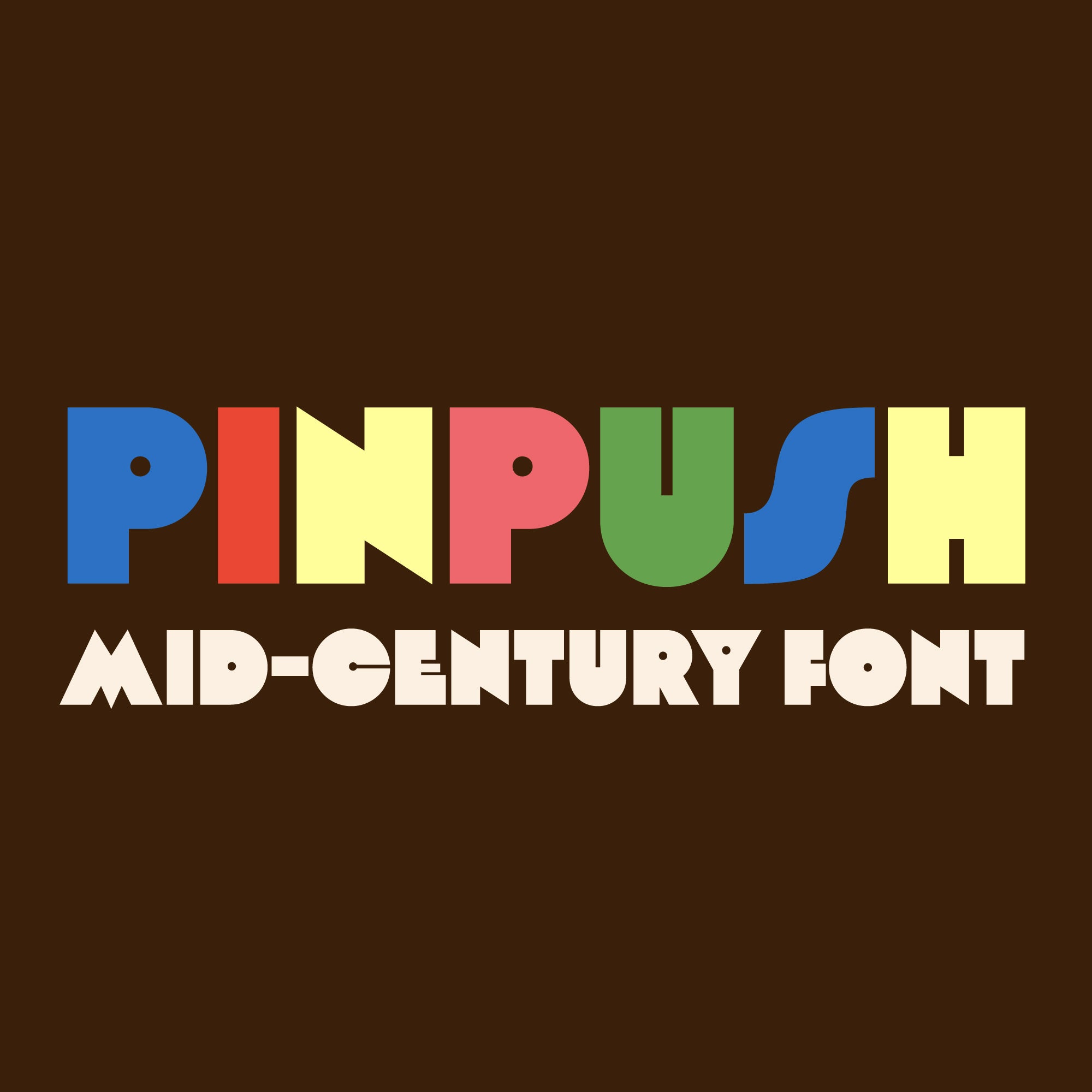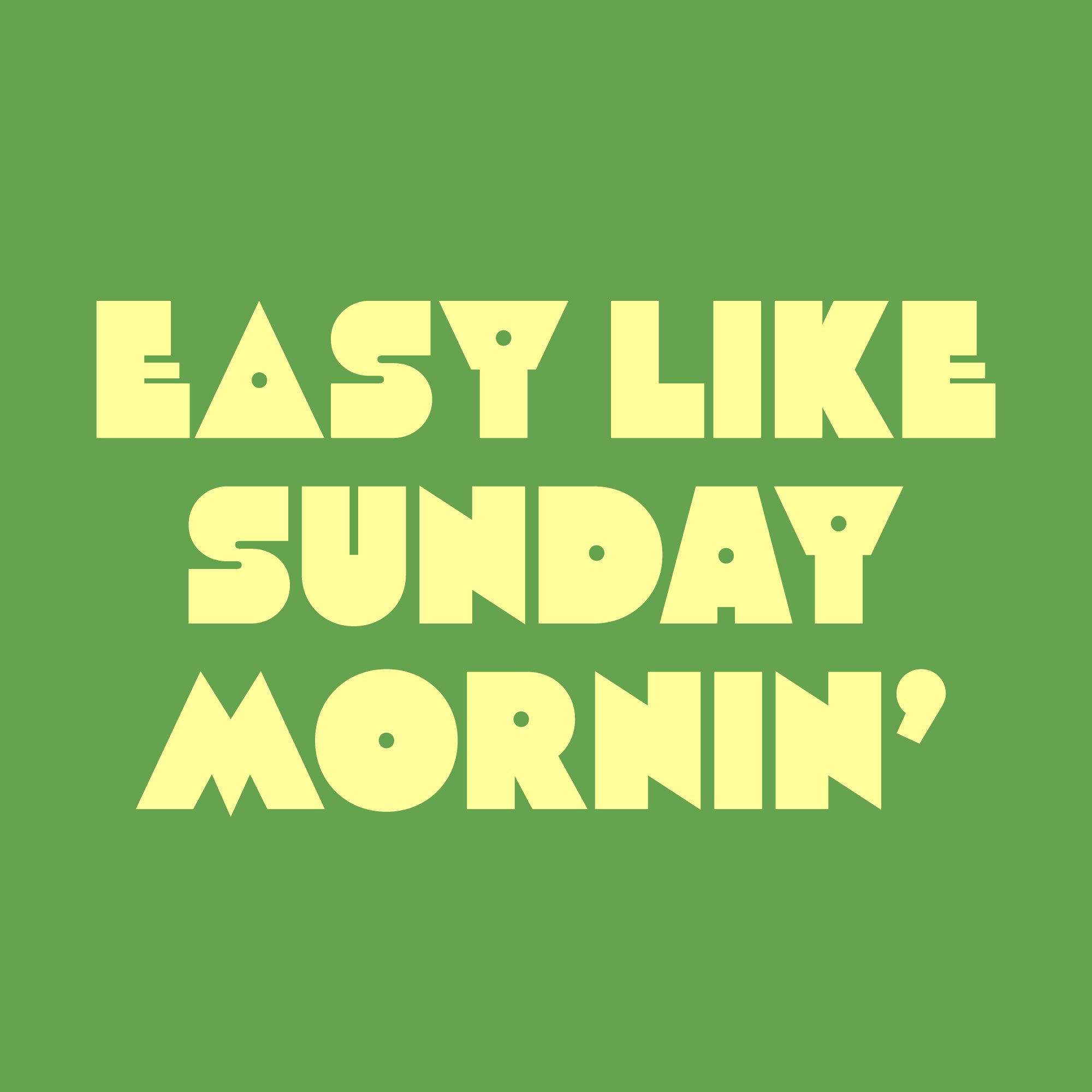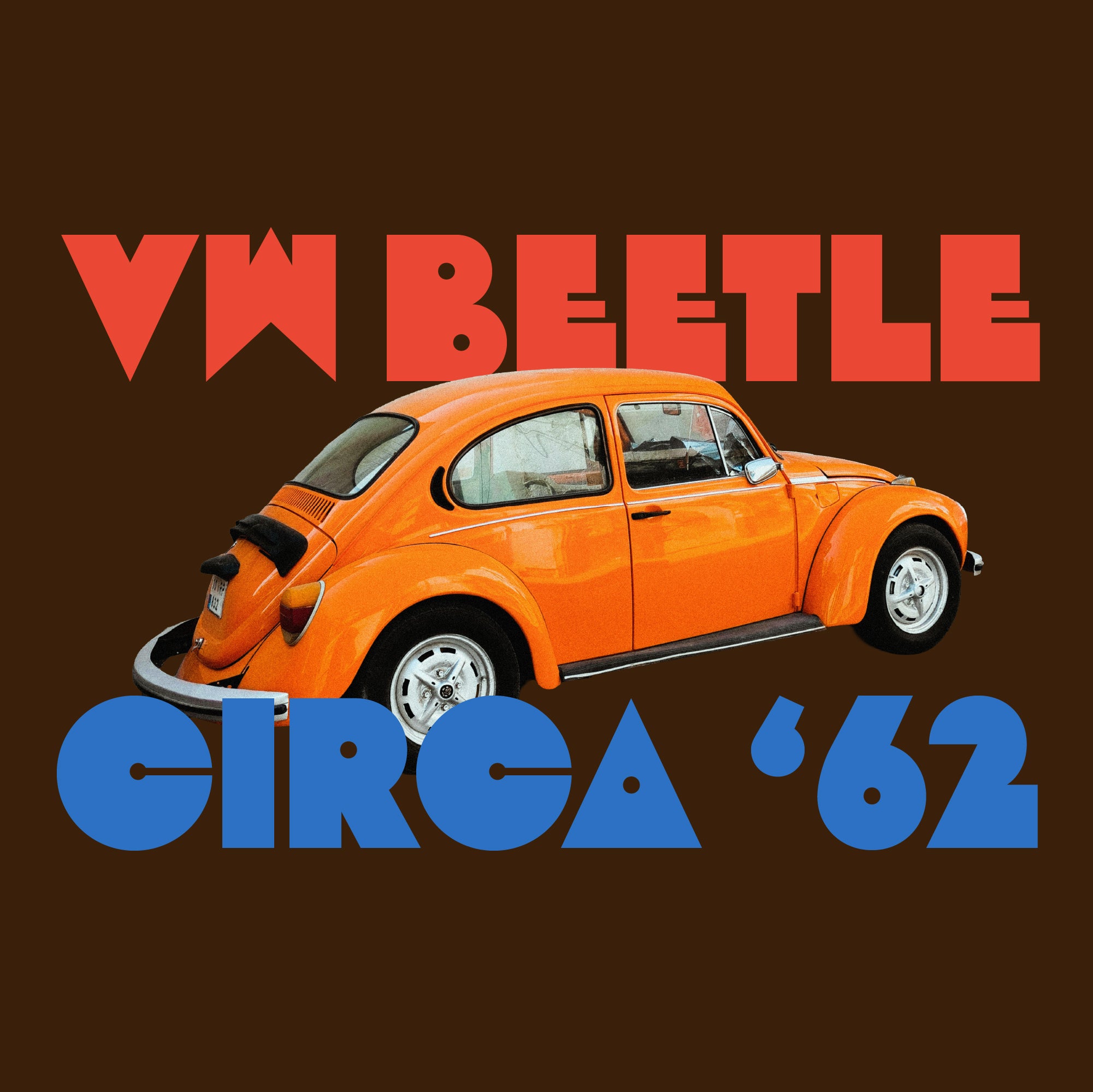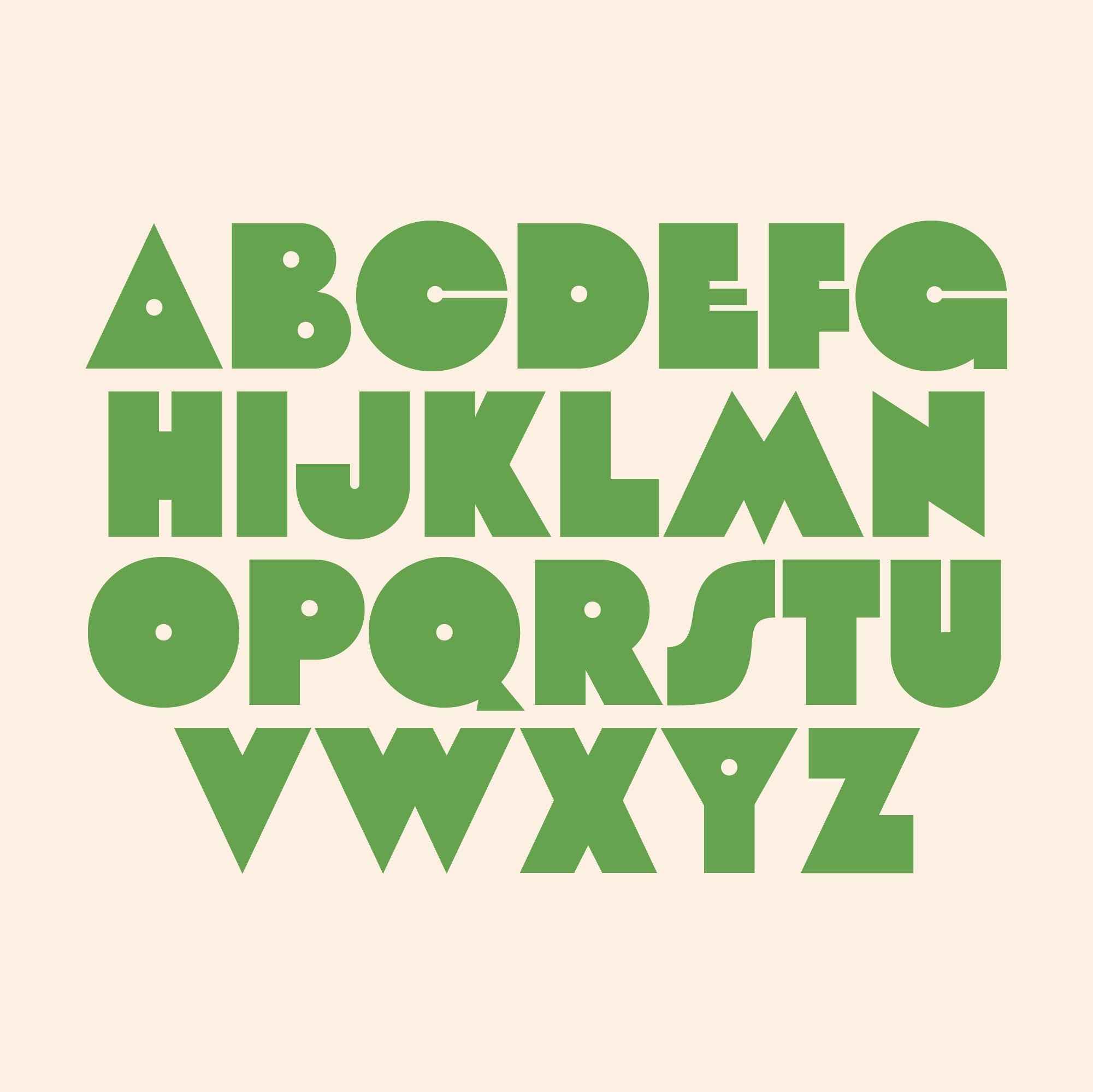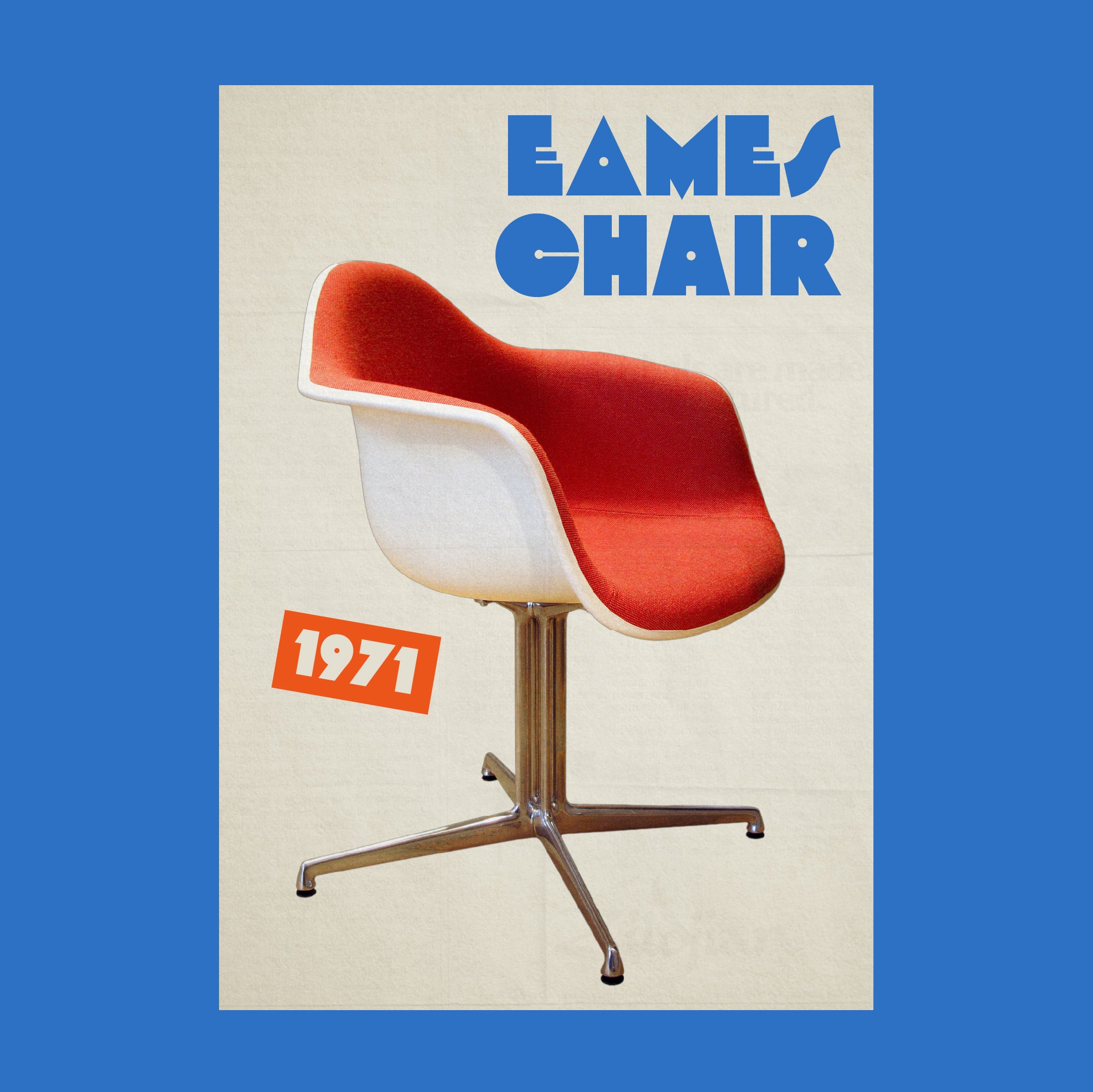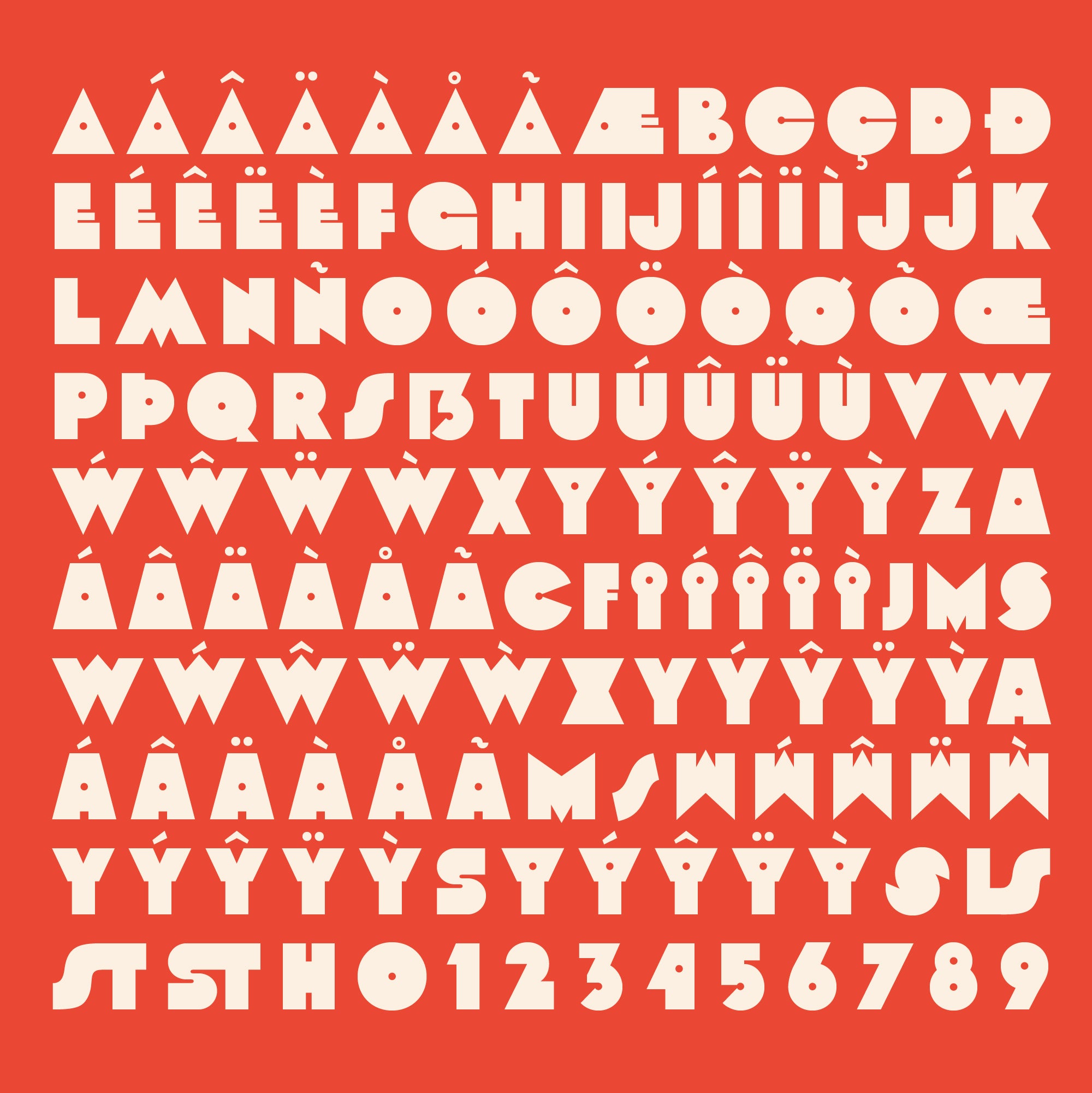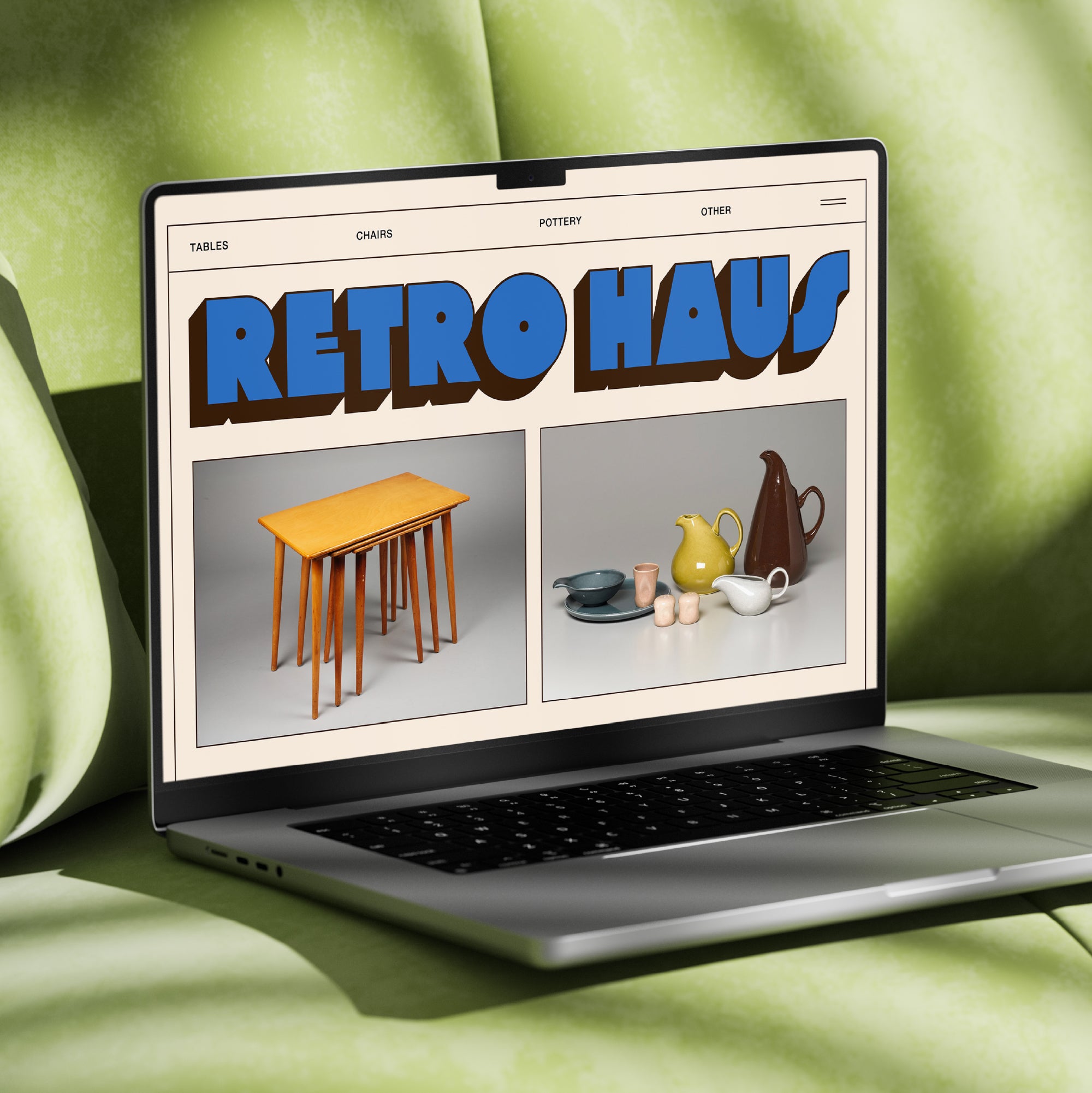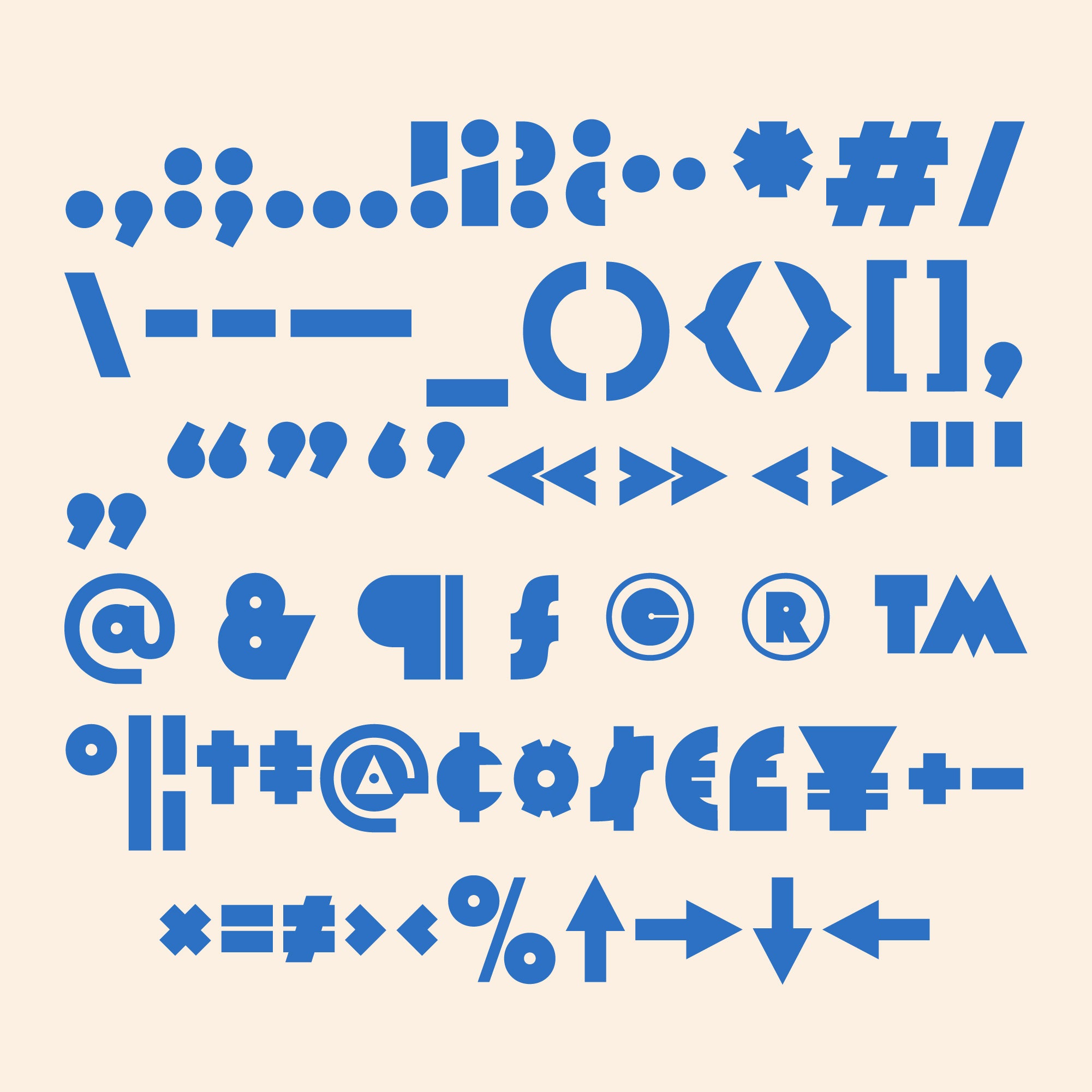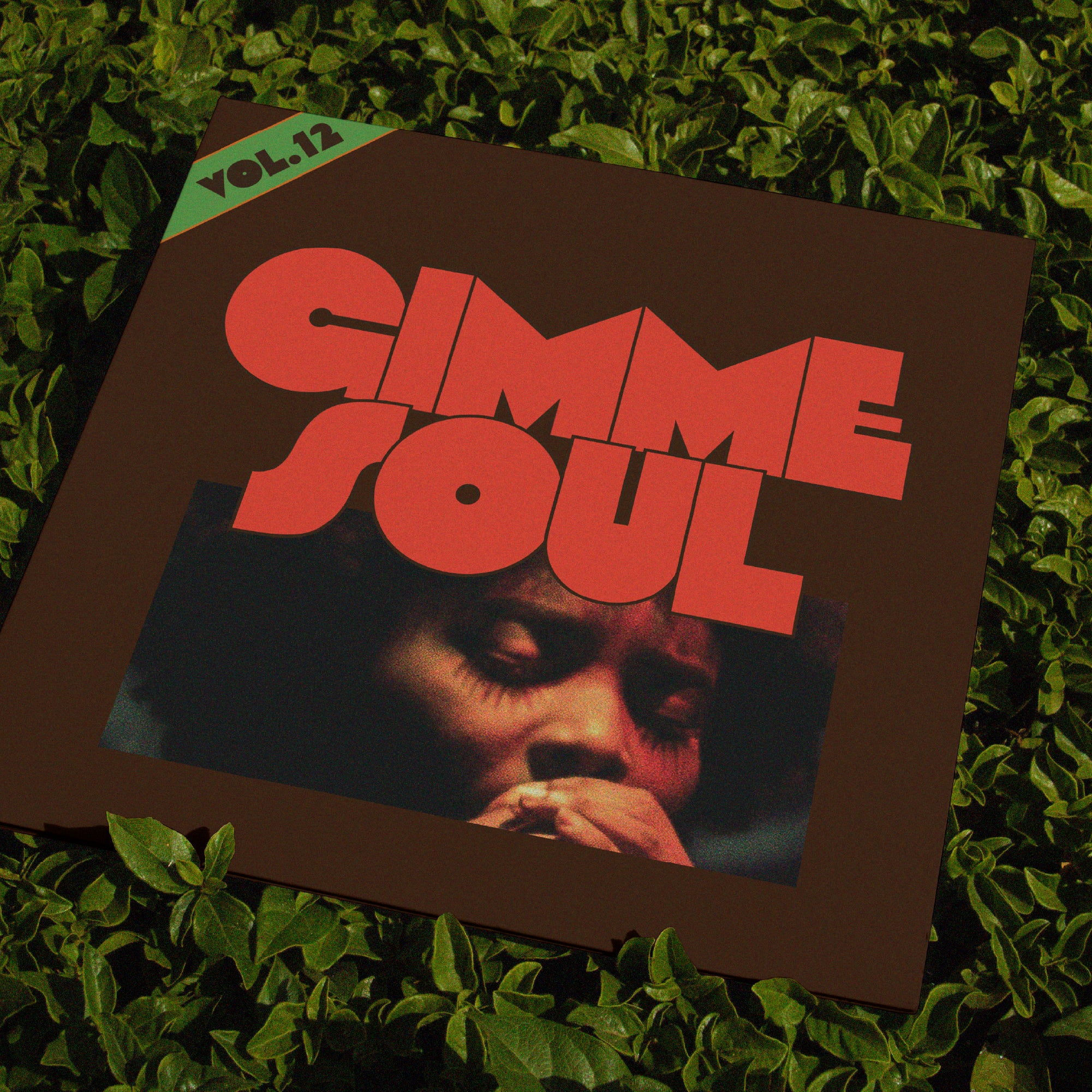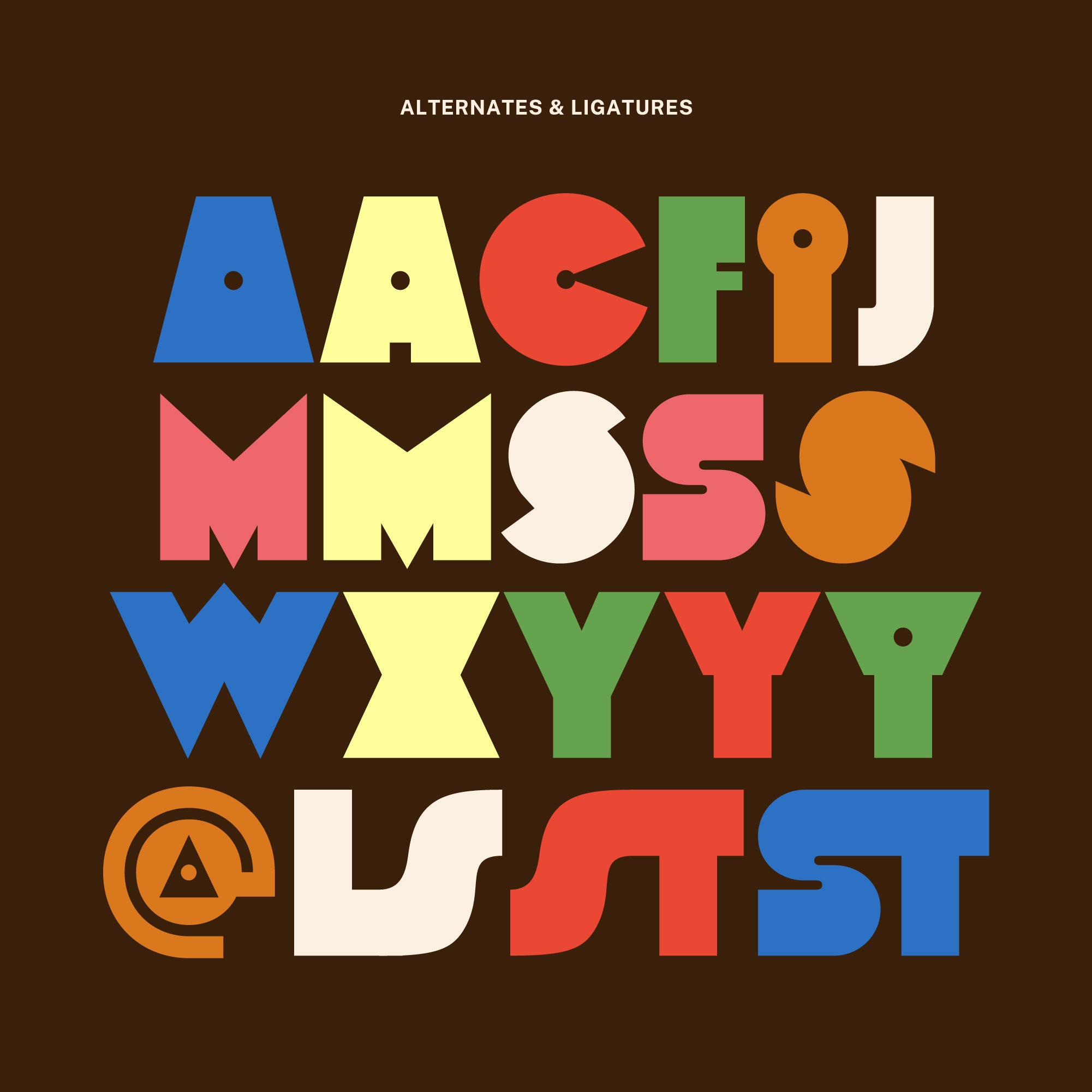
Pinpush - Retro Sans Serif Display Font
Pinpush is a bold, chunky, retro-inspired all caps display font with geometric shapes and mid-century style. Confident and memorable, this uppercase typeface adds timeless vintage energy to any branding, logos, posters, packaging, album covers, and editorial layouts.
Its striking, blocky letterforms give your designs a playful yet commanding presence, making it perfect for standout headlines, brand identities, social media graphics, and bold, eye-catching visuals.
• Uppercase A–Z
• Numbers & punctuation / symbols
• Alternates & ligatures
• Latin language support
Pinpush is a bold, chunky, retro-inspired all caps display font featuring geometric shapes and a mid-century style. It includes uppercase letters A-Z, numbers, punctuation, alternates, ligatures, and supports Latin languages, available in OTF, TTF, and WOFF formats.